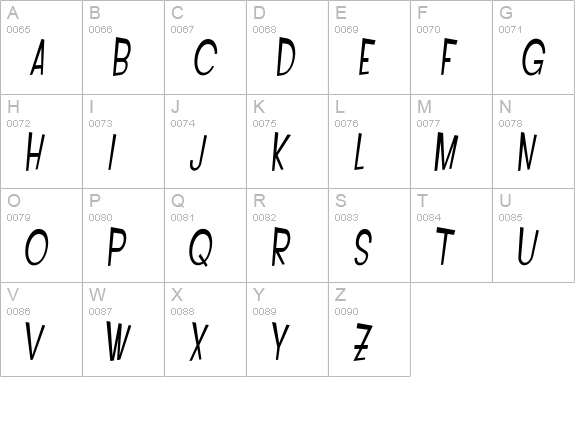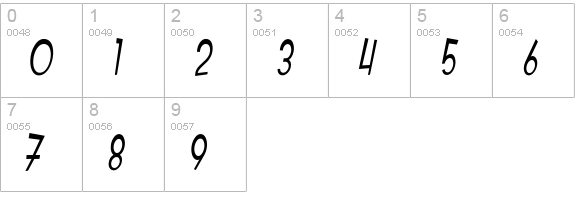
SF Intoxicated Blues Oblique Font Details
SF Intoxicated Blues Oblique is a distinctive, italic variant in the SF typeface family \xE2\x80\x94 well suited to design and typography projects.
SF Intoxicated Blues Oblique font is a stunning typeface that embodies the essence of the blues in a captivating and intoxicating way. With its slanted and oblique design, this font exudes a sense of movement and fluidity, mirroring the soulful melodies and expressive rhythms that define the blues genre. The elegant curves and unique letterforms of SF Intoxicated Blues Oblique font add a touch of sophistication and intrigue to any design project. This font is perfect for capturing the mood and atmosphere of jazz clubs, late-night jam sessions, and smoky dive bars. Whether you're designing album covers, posters, or websites for musicians, this font will effortlessly evoke the cool and soulful vibes of the blues. Its versatility also makes it suitable for other creative projects such as branding, packaging, and editorial design. One of the best features of SF Intoxicated Blues Oblique font is that it is freely available to download at FontsMarket.com. This means that you can easily access this remarkable font without any cost or hassle. The creators of SF Intoxicated Blues Oblique font believe in the power of creativity and want to make sure that everyone has the opportunity to use this font to enhance their designs. Don't miss out on the opportunity to add a touch of the blues to your designs with SF Intoxicated Blues Oblique font. Download it for free at FontsMarket.com and let the intoxicating melodies of this font bring your designs to life.